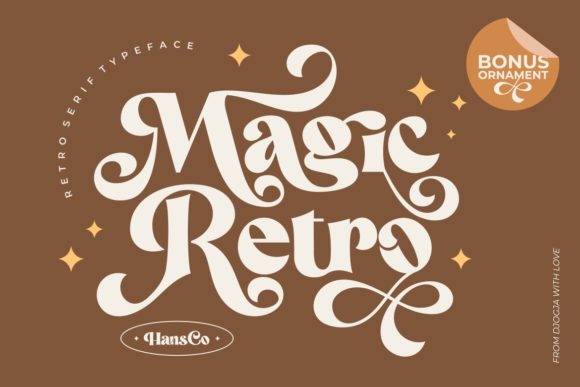
Introducing Magic Retro Font, the perfect choice for anyone looking for the best font for vintage T-shirts! Created by HansCo, this serif font is the ultimate tool for adding a touch of nostalgia to your designs.
Magic Retro Font delivers an incredible vintage aesthetic that feels playfully nostalgic. This eye-catching font is perfect for anyone looking to add a unique and captivating touch to their designs. Whether you're designing a T-shirt, a poster, or any other project, Magic Retro Font will give your work that special something that sets it apart.
One of the great features of Magic Retro Font is that it's PUA encoded. That means you can easily access all of the glyphs and swashes, making it incredibly versatile and perfect for any project. With Magic Retro Font, you can take your design to the next level and truly capture the attention of your audience.
But Magic Retro Font isn't just about aesthetics. It's also about emotion. This font evokes a sense of nostalgia and longing for simpler times. It's the perfect choice for anyone looking to connect with their audience on an emotional level and create designs that truly resonate.